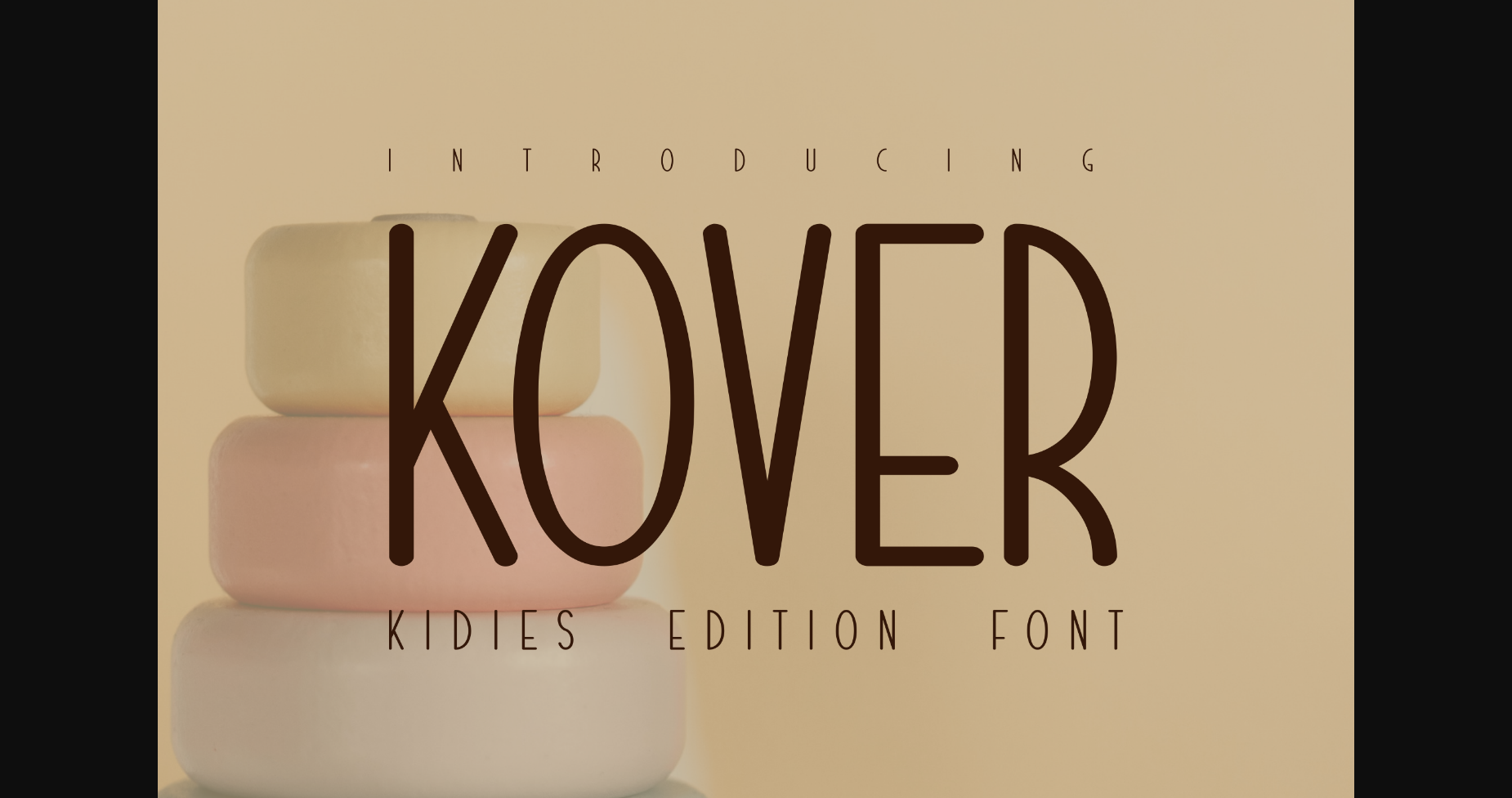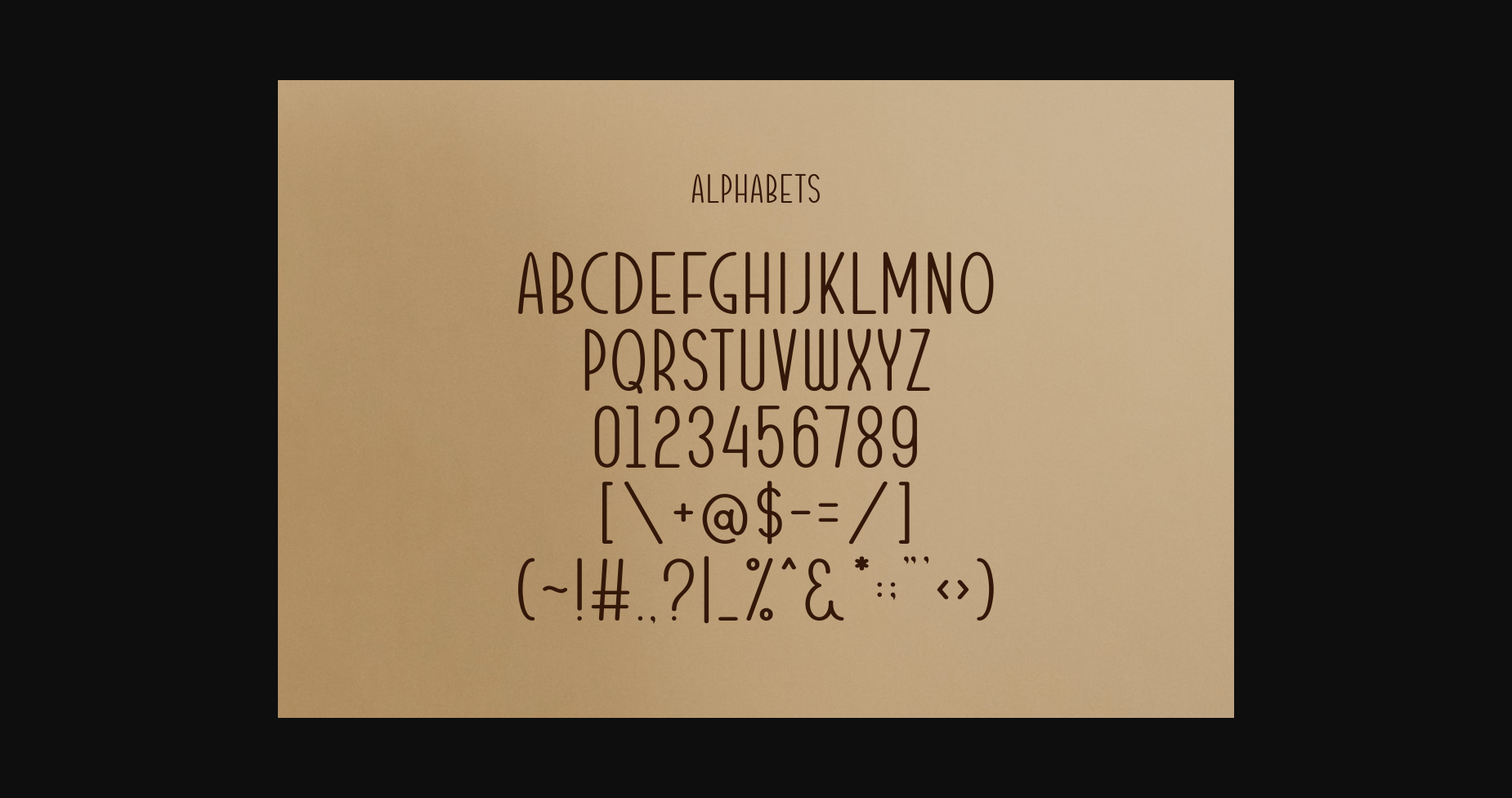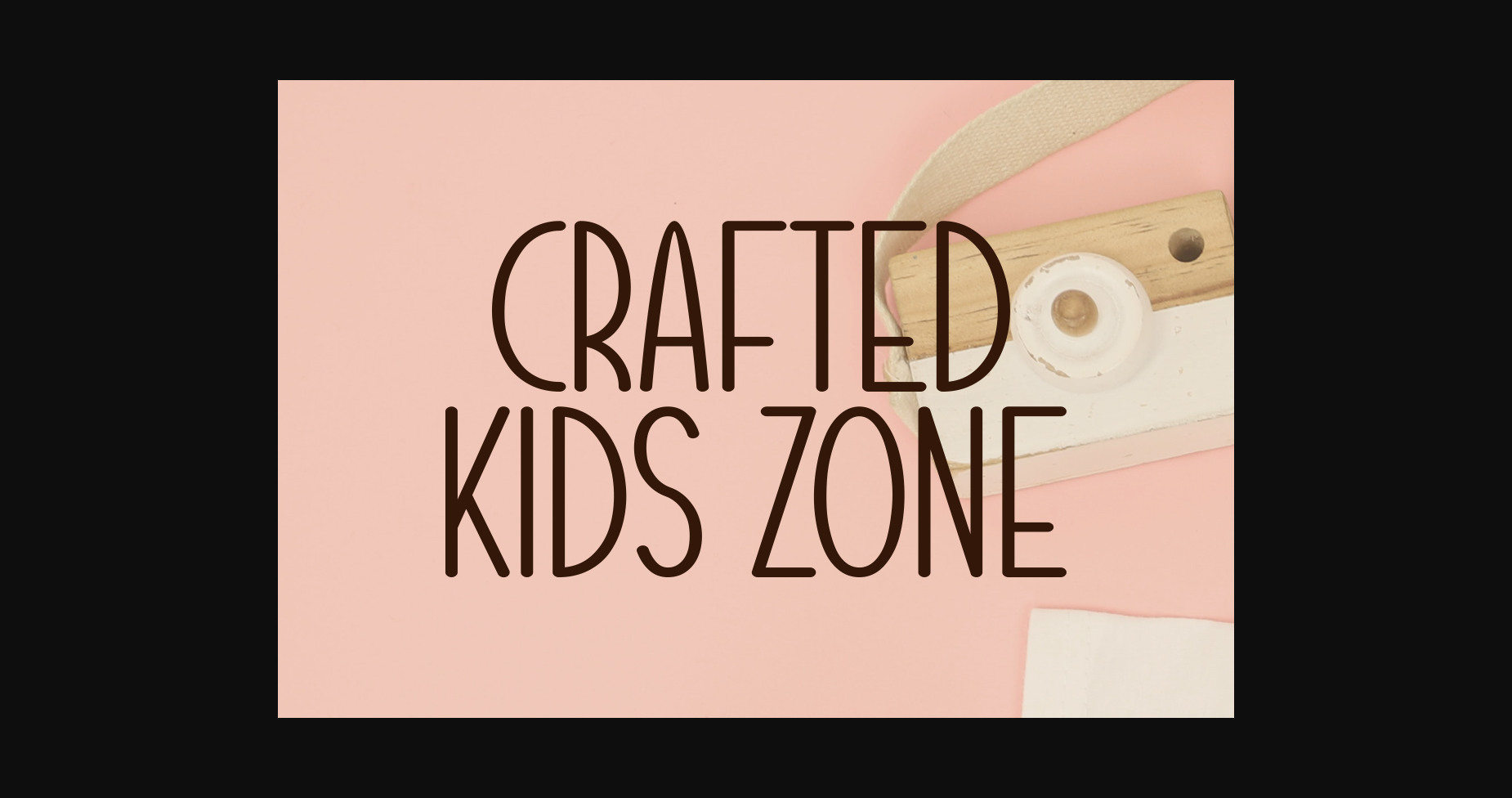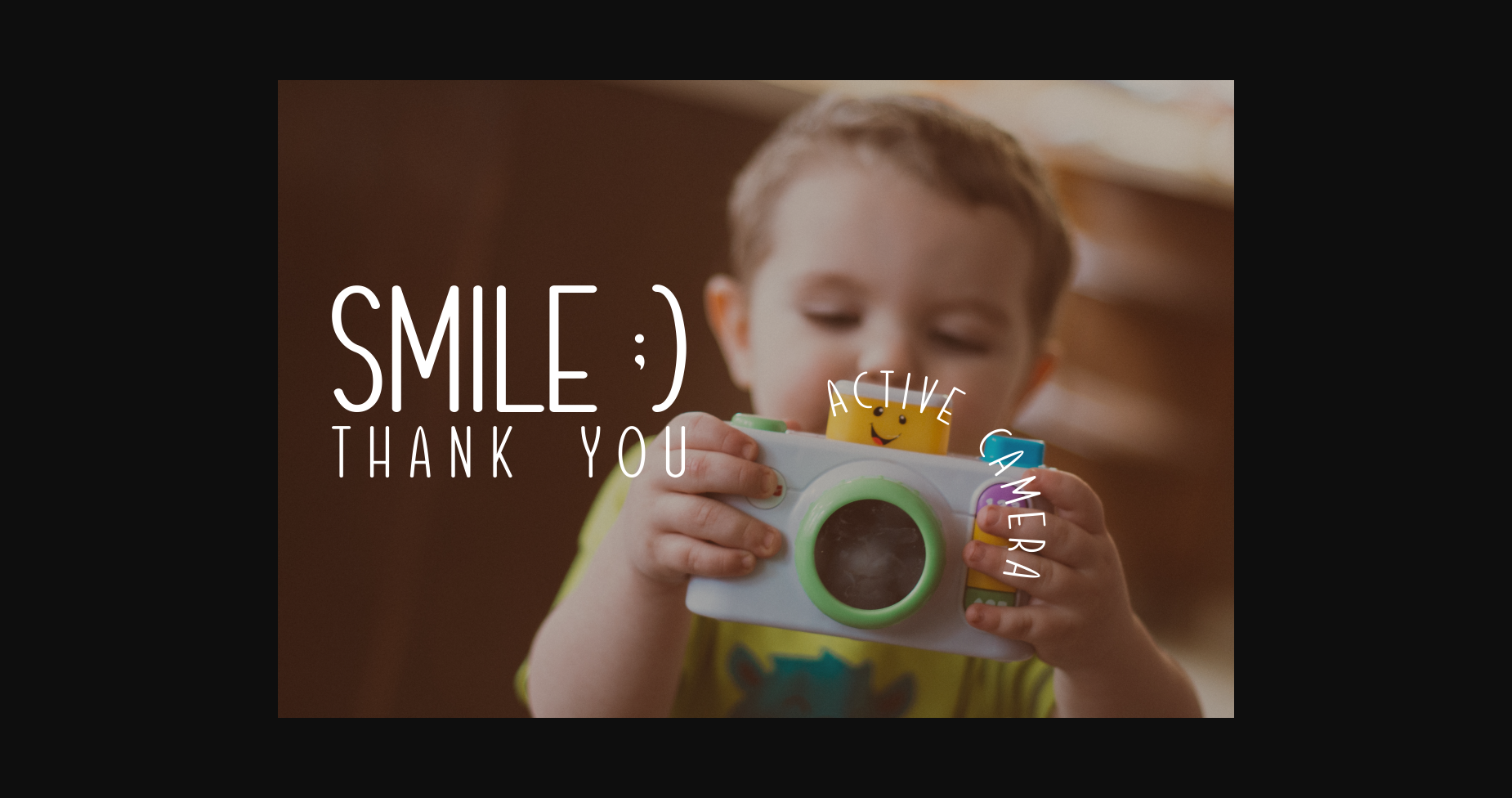
About Kover Font
Kover is a special font, suitable for baby, toddler, and even elementary school products. Make every touch of the product more meaningful for your little one.